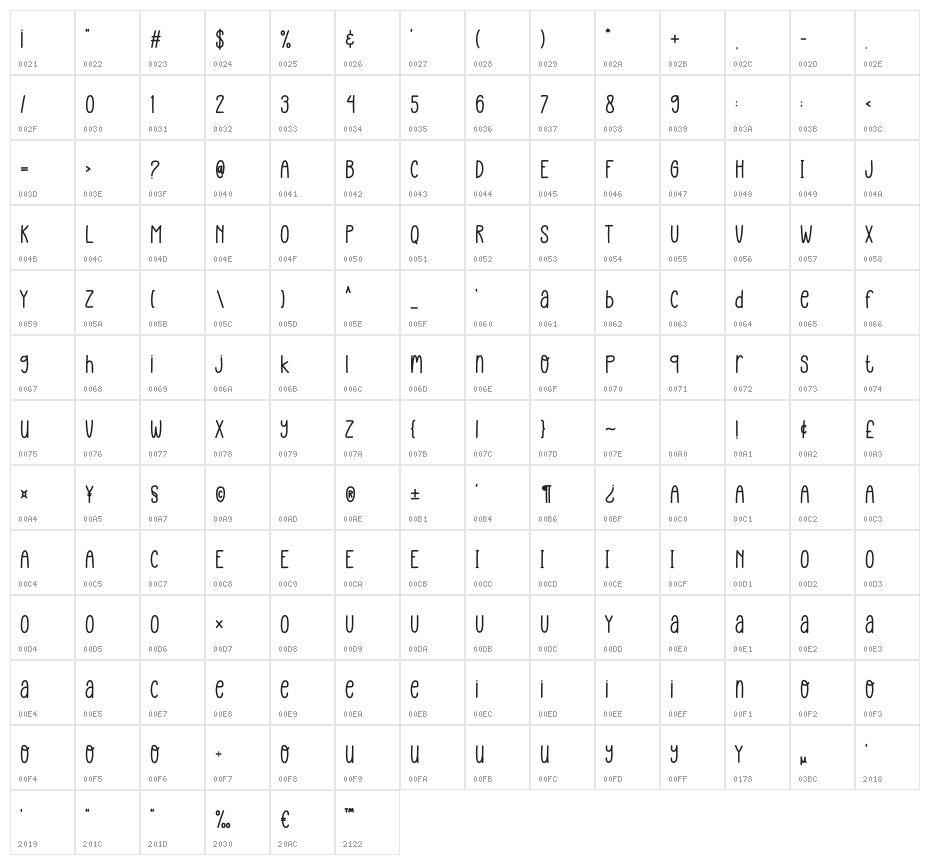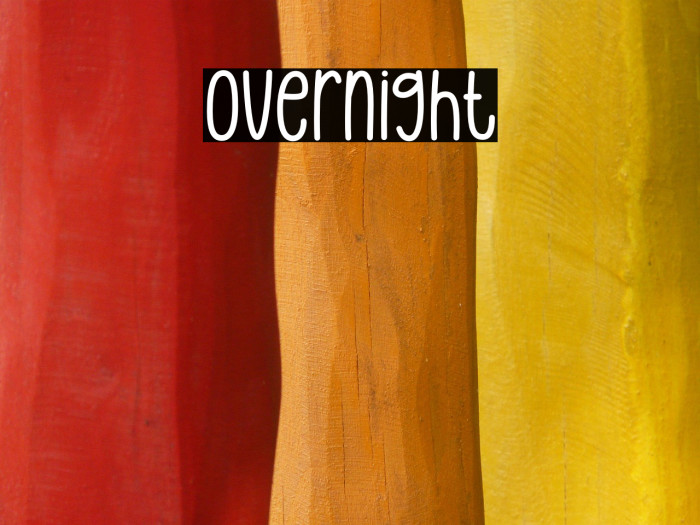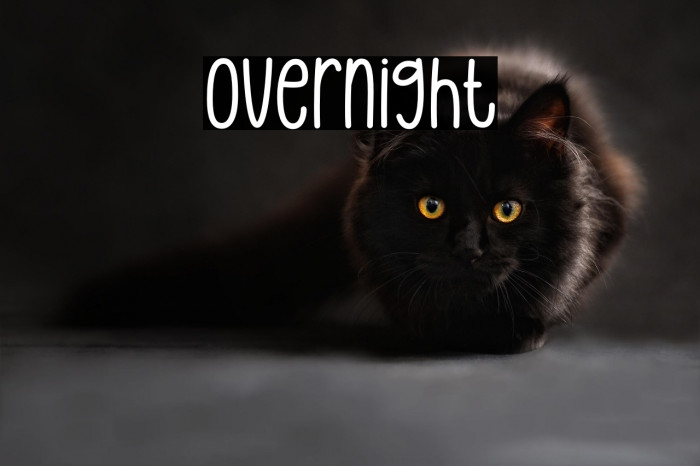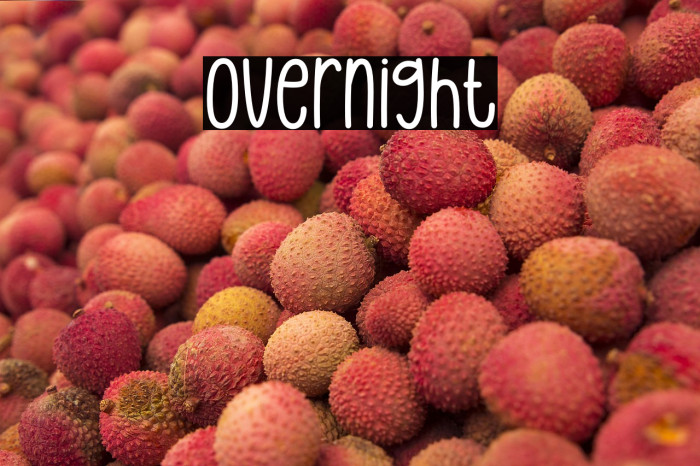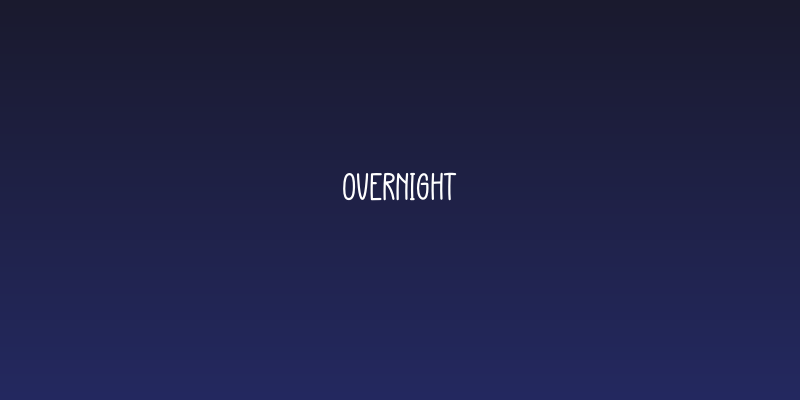
Overnight Font
A playful, handwritten font with rounded edges and a casual style, suitable for informal and creative projects.
Overall StyleCasual, Playful
Use CaseHeadlines, Informal text, Creative projects
Proposed ProjectsGreeting cards, children's books, casual branding.